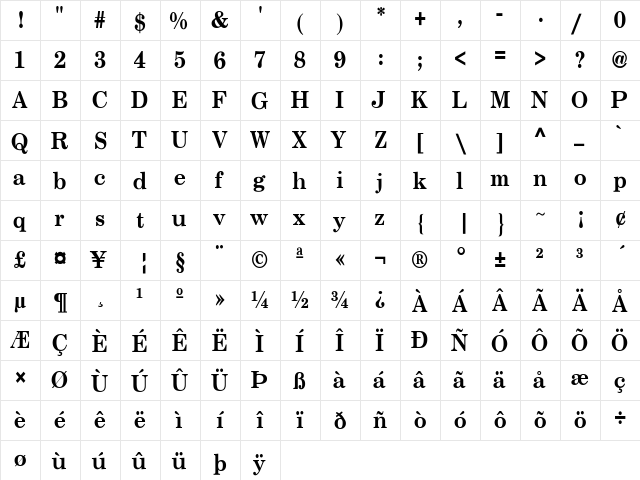
NewCenturySchlbkCnd-Bold Regular
Design Context for NewCenturySchlbkCnd-Bold Typeface
NewCenturySchlbkCnd-Bold takes a measured approach to typography — its balanced proportions and neutral character make it a reliable workhorse for both digital and print work. The heavy weight commands attention and anchors typographic hierarchies.